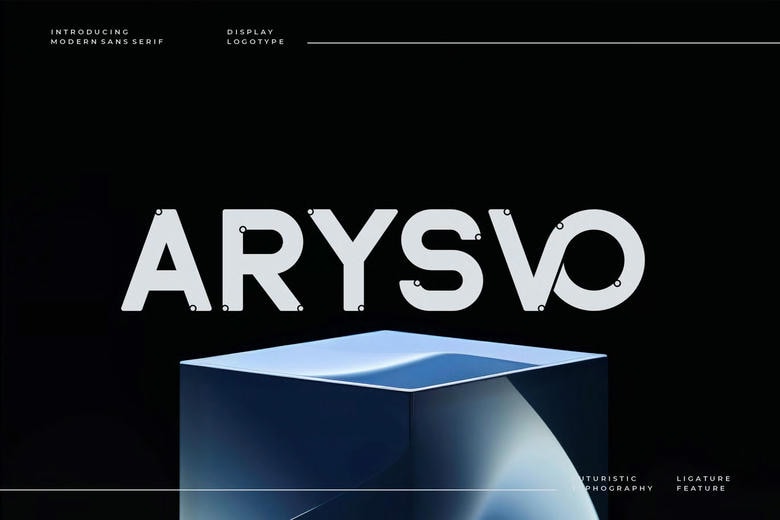
Arysvo Font
Arysvo is a futuristic and modern typeface that can be used in all brand and logos. This is a beautiful display font of modern and futuristic nature. It can be applied to invitation cards templates, cool logos, movie titles, film names, business cards, book titles, brand names, and other designs.
Arysvo Display is a fluid display font that is very sophisticated and has an element of immediacy. This font is a perfect match with any project because of its beautiful ligatures.
Arysvo Display Font